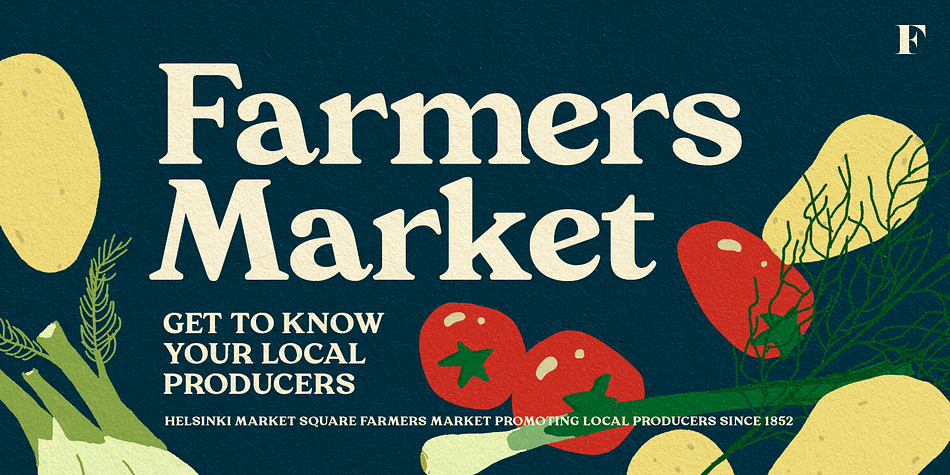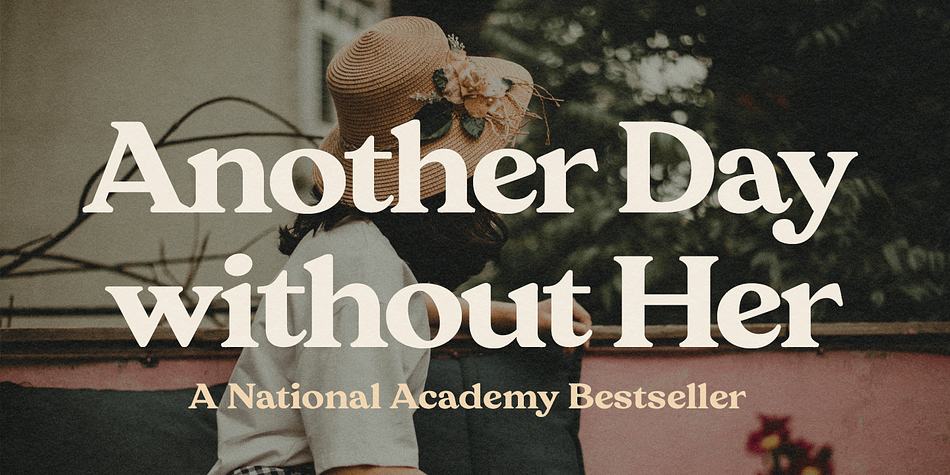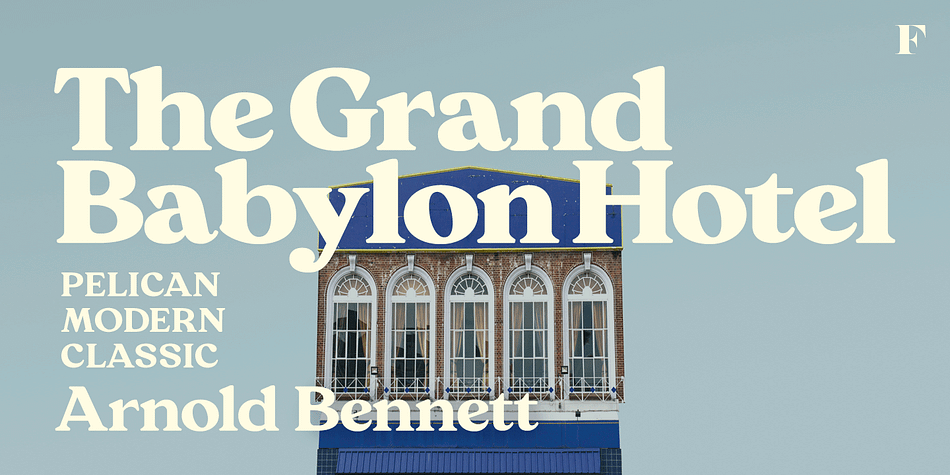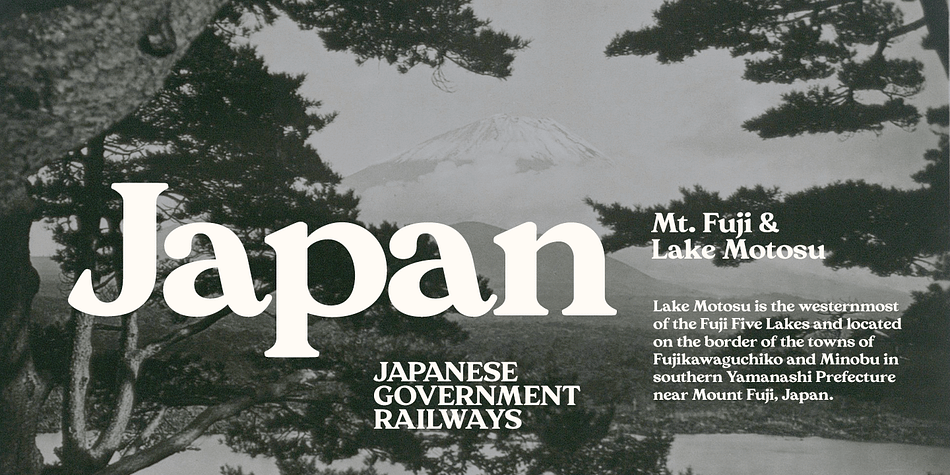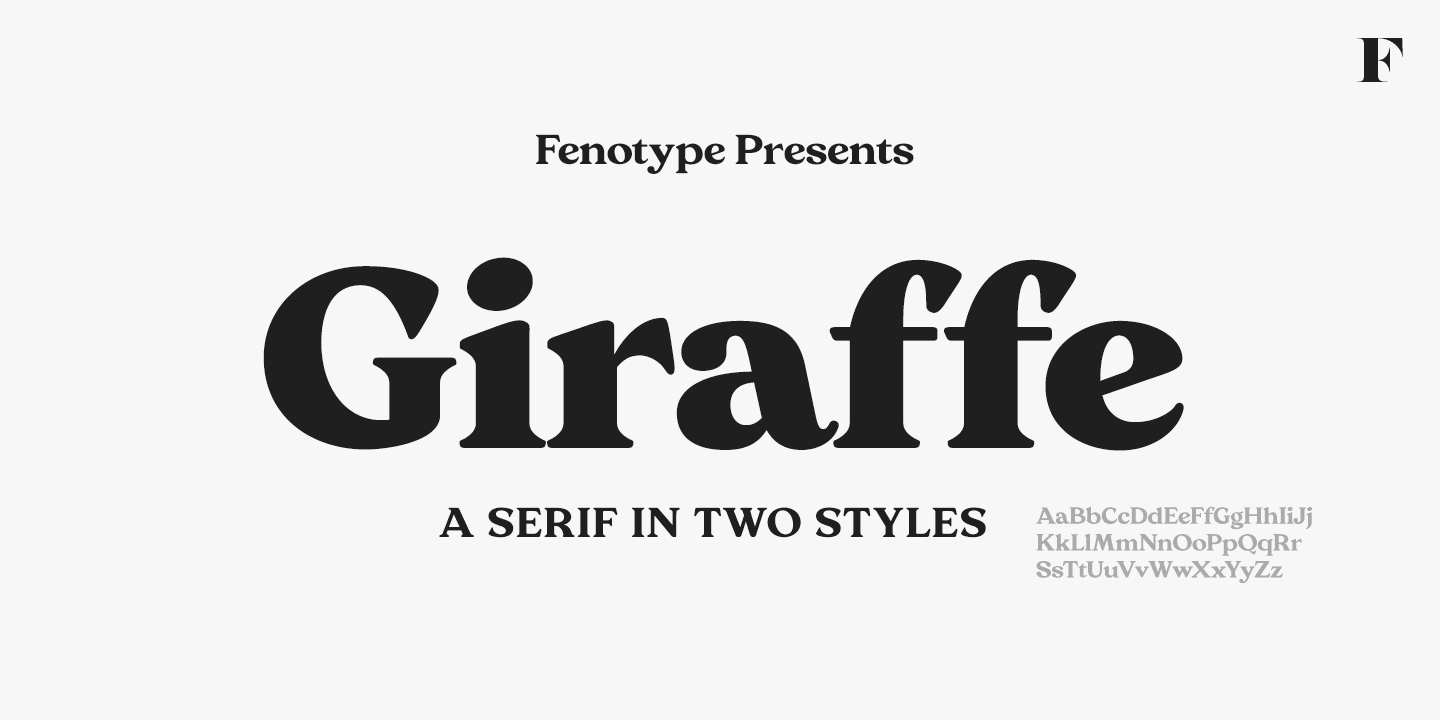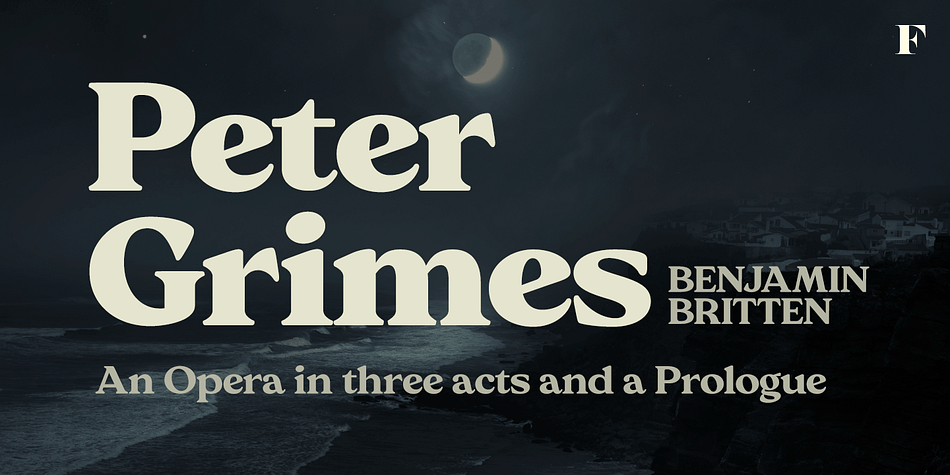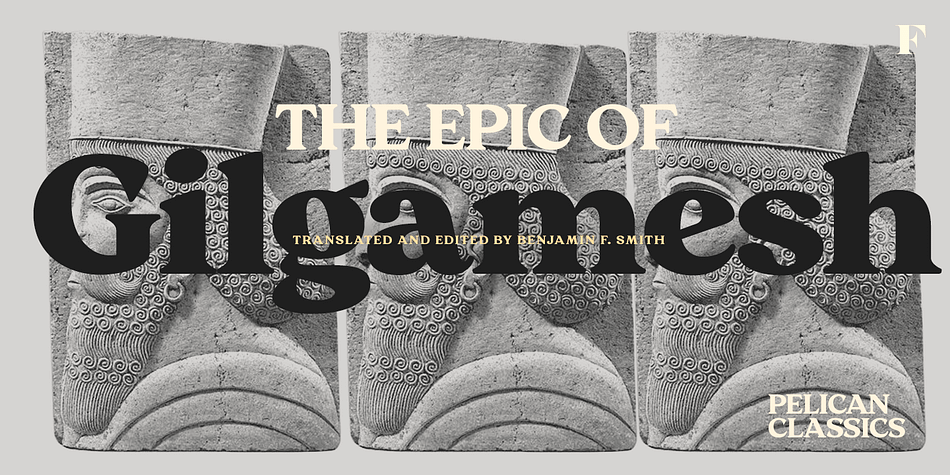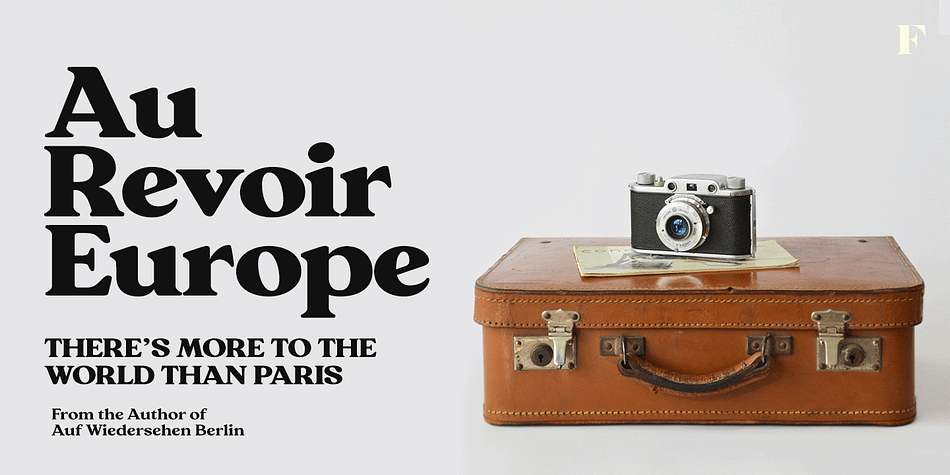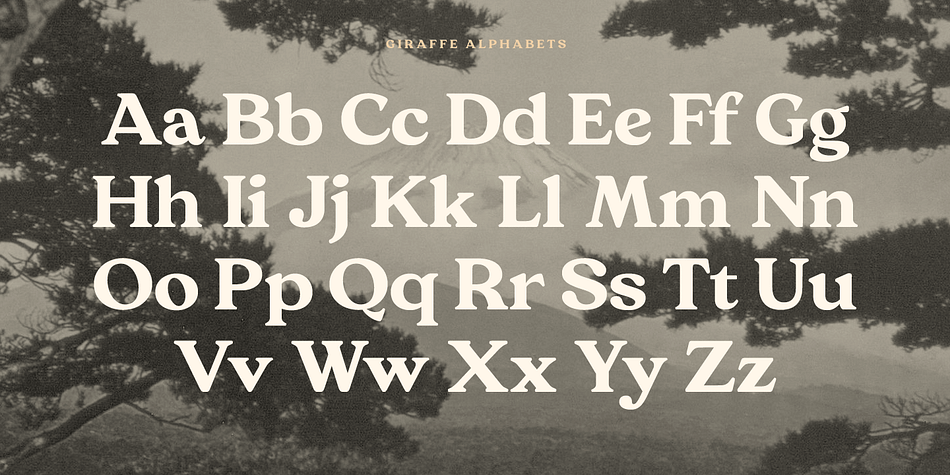
Giraffe
Designed by Emil Bertell, Giraffe is a display serif and retro font family. This typeface has two styles and was published by Fenotype.
Giraffe is a wide and bold rounded serif in two styles. Giraffe occupies a large space and is best used as display type to convey a confident look.
Giraffe comes with a set of Stylistic Alternates for letters C,G,J,R,S, a, c, f, g, r, s and $.
Designer Emil Karl Bertell